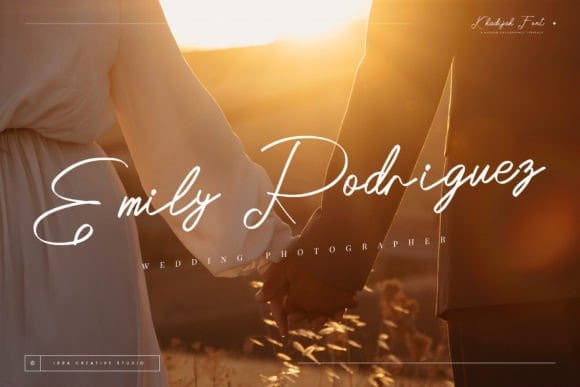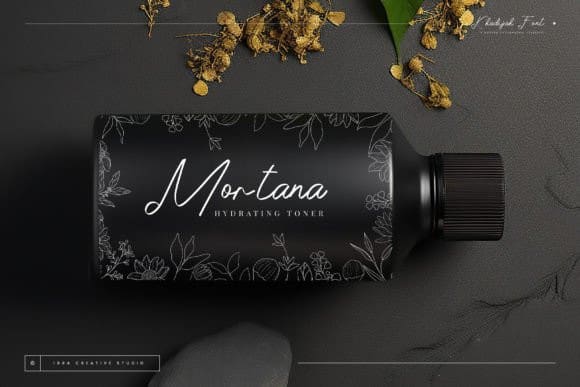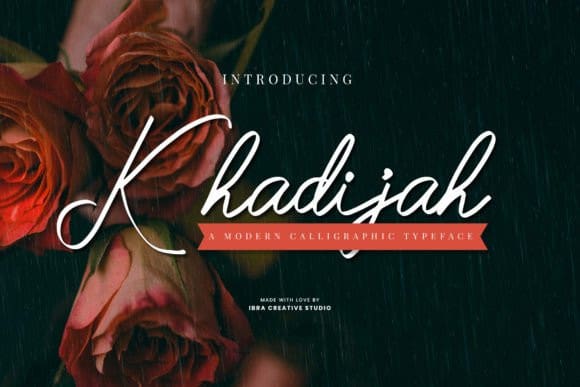
Khadijah Script Font
Khadijah Script Font is a contemporary calligraphic typeface that effortlessly blends traditional elegance with a modern aesthetic. Designed with meticulous attention to detail, this typeface showcases graceful and fluid letterforms that evoke the artistry of classic calligraphy while embracing a distinct contemporary flair. The sweeping curves and delicate strokes of Khadijah contribute to its sophisticated and versatile character, making it well-suited for a wide range of applications, from invitations and branding to digital interfaces.